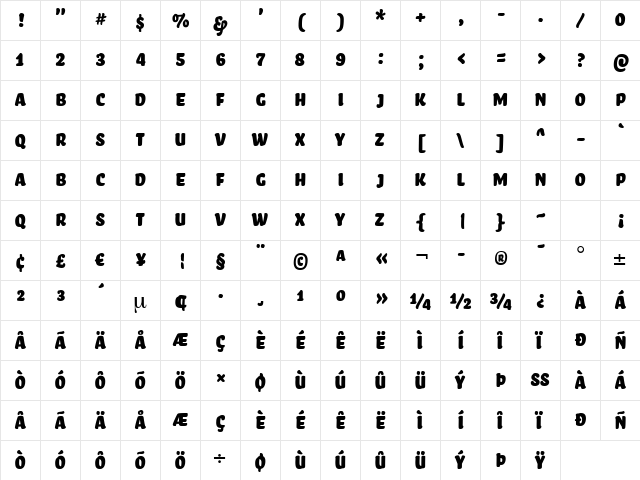
Bello SmCp
Design Context for Bello Typeface
Bello is a composed and adaptable typeface that performs quietly and consistently across a wide range of design contexts.